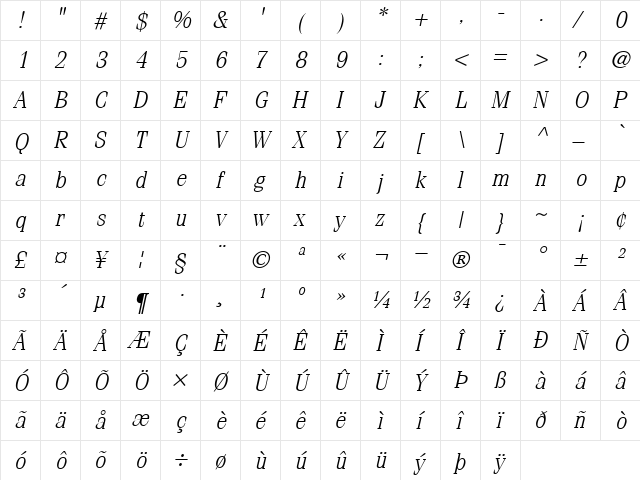
ITCFenice-Light LightItalic Font Preview
ITCFenice-Light LightItalic
ITCFenice-Light LightItalic Font Details
Design Context for ITCFenice-Light Typeface
ITCFenice-Light is a composed and adaptable typeface that performs quietly and consistently across a wide range of design contexts. The dynamic lean of this cut emphasises speed and emphasis in any layout. The delicate stroke weight brings airiness and refinement to layouts.
Pro Tip: Use ITCFenice-Light for emphasis, pull quotes, and subheadings where its slanted energy can add rhythm to the layout.